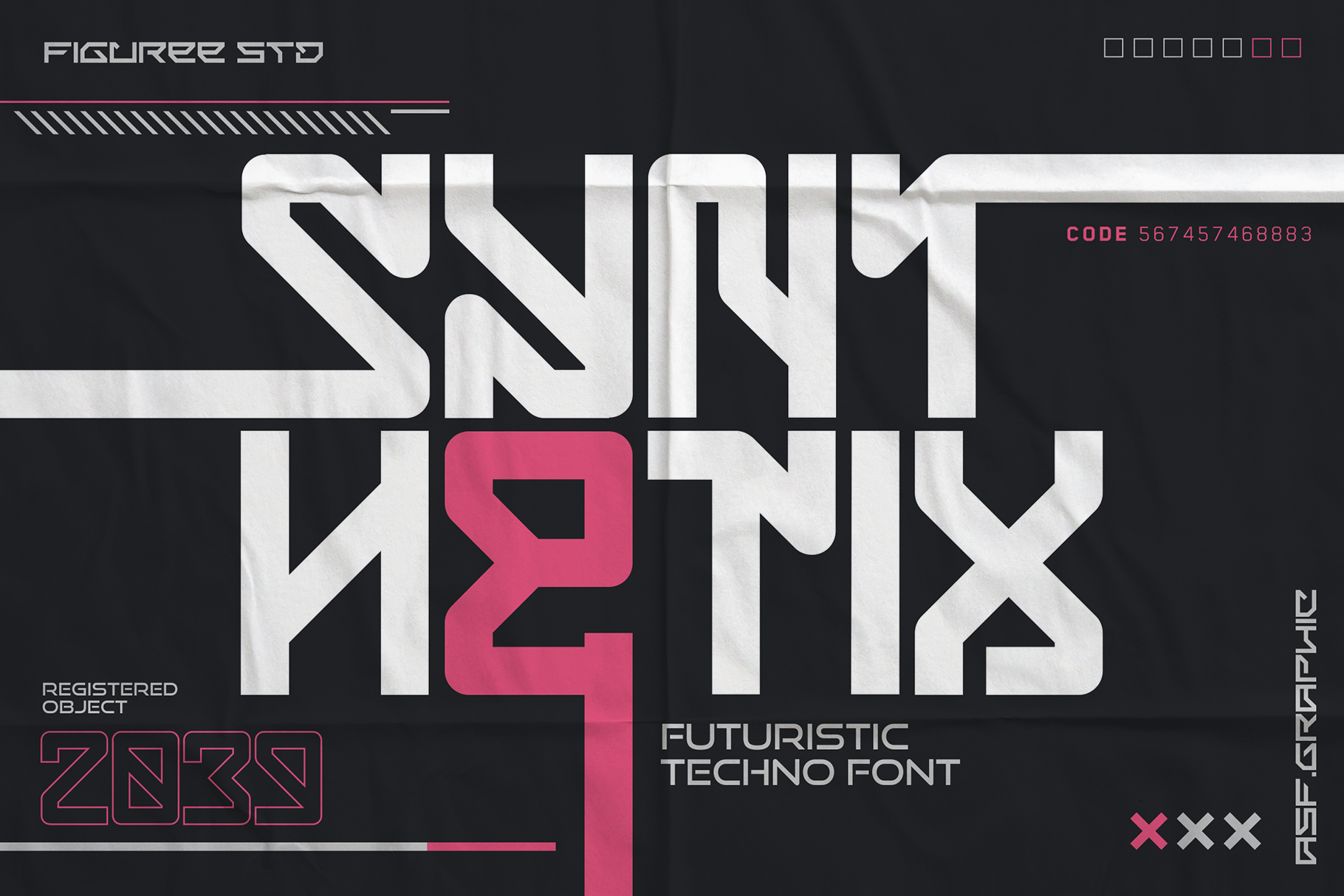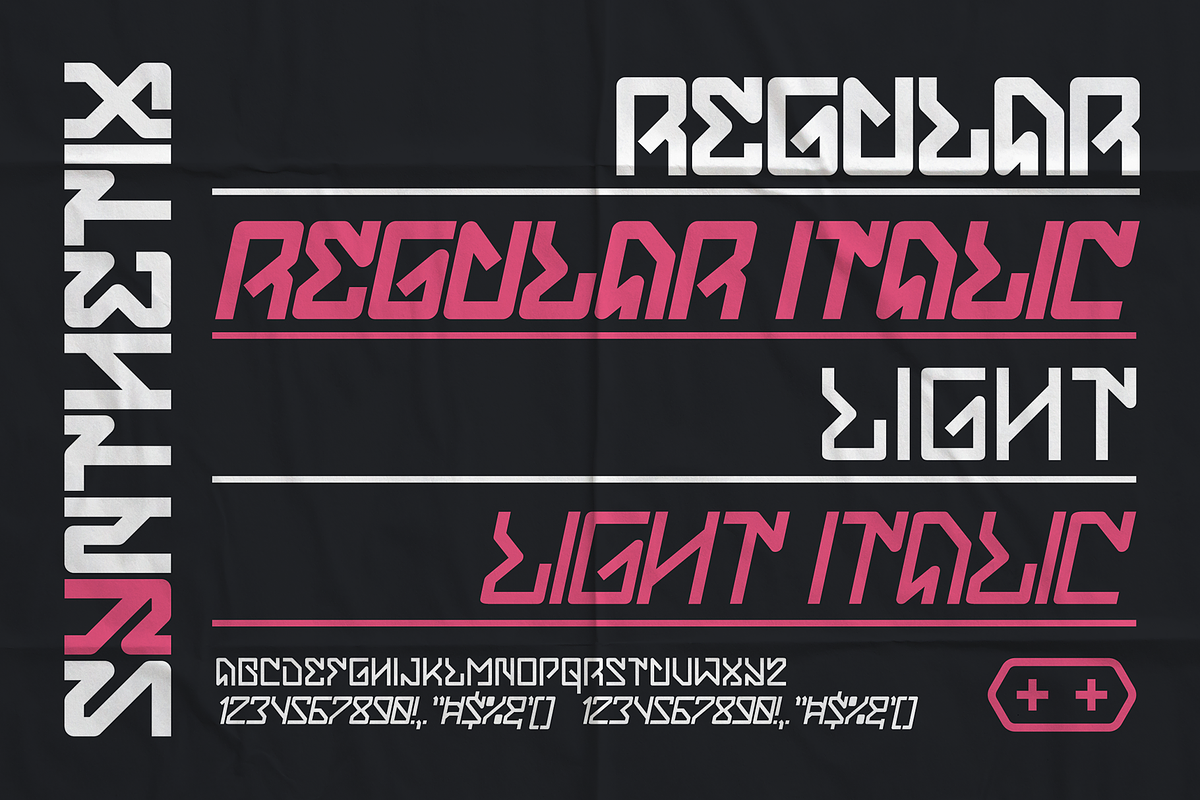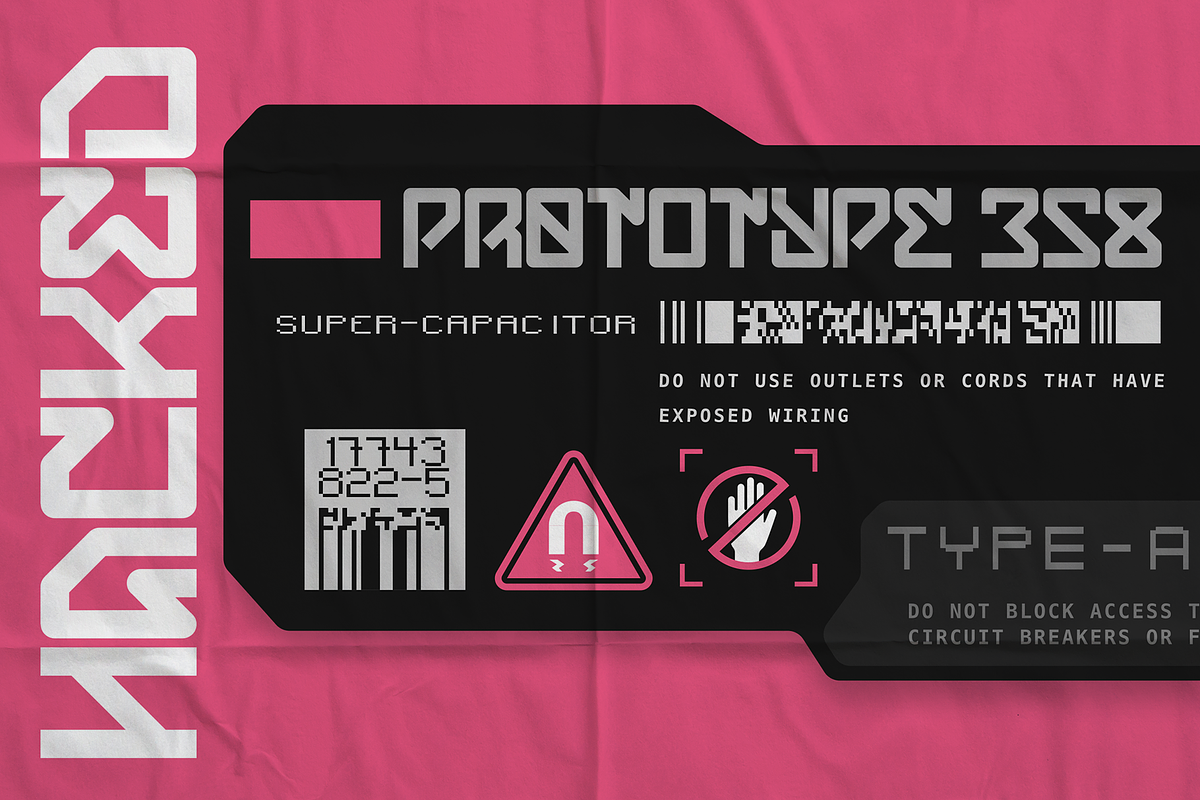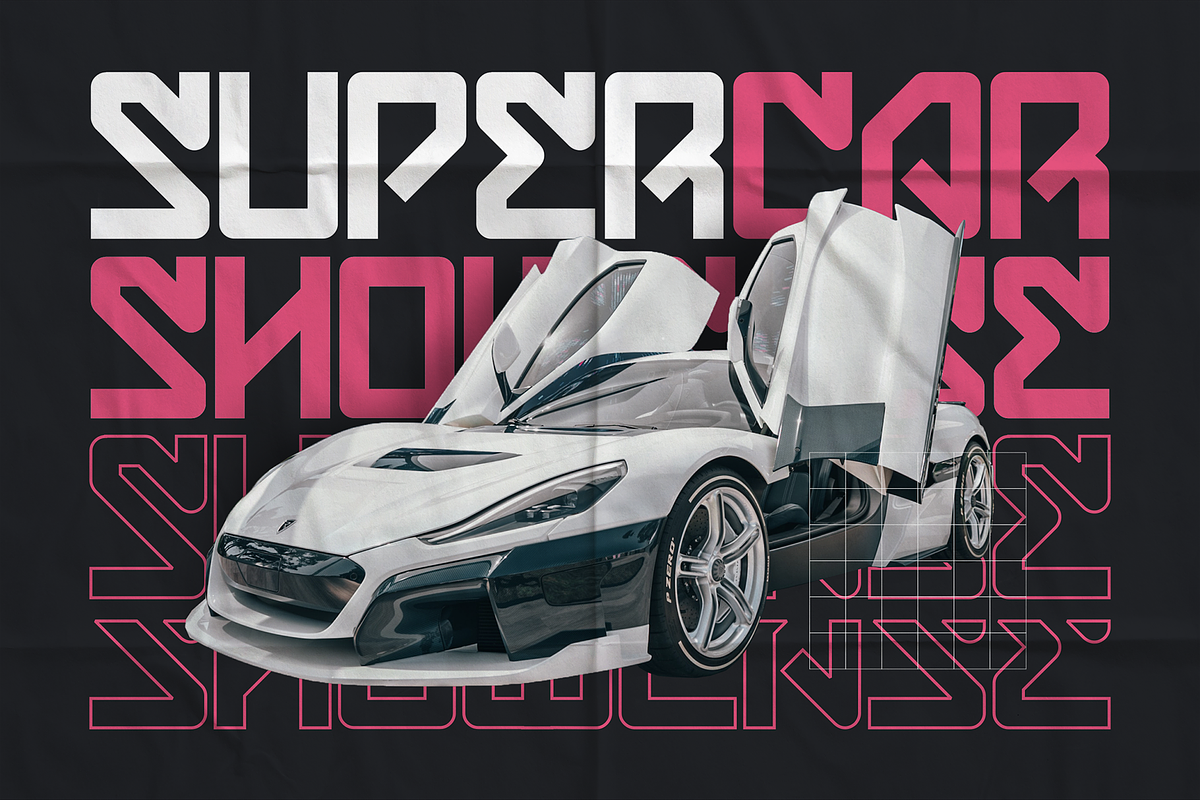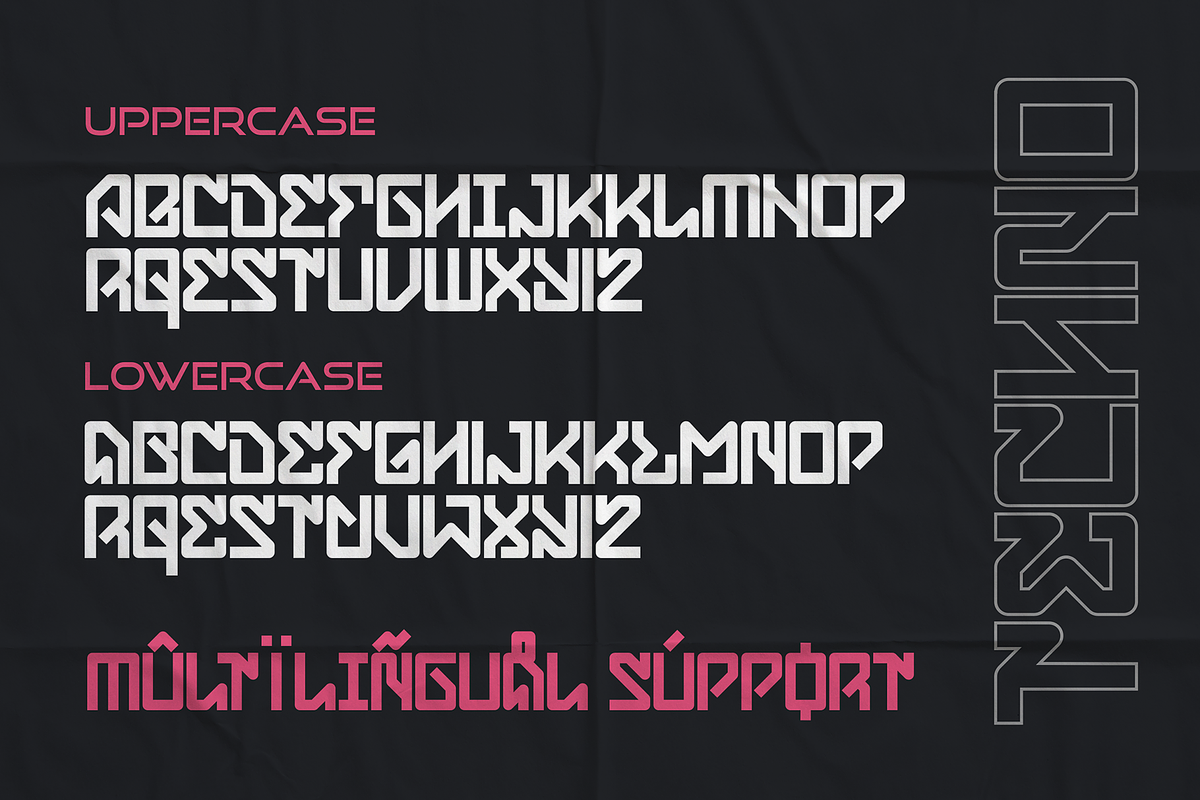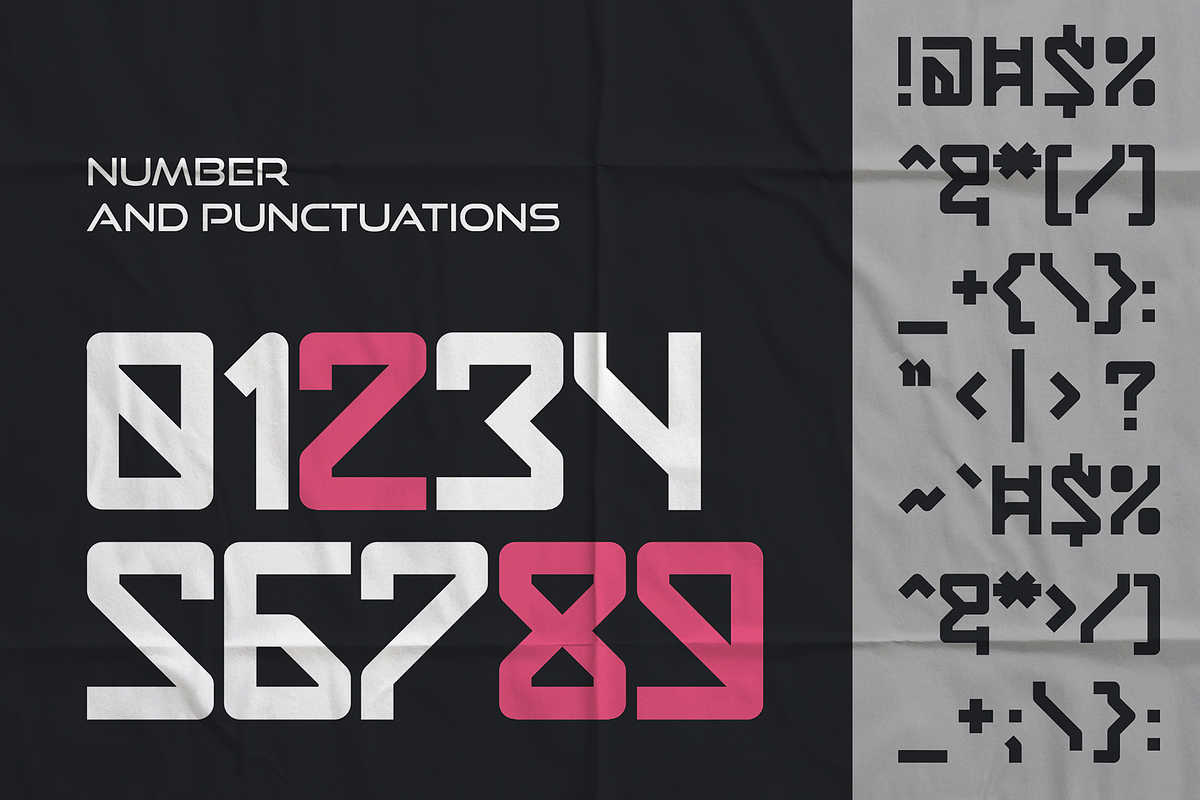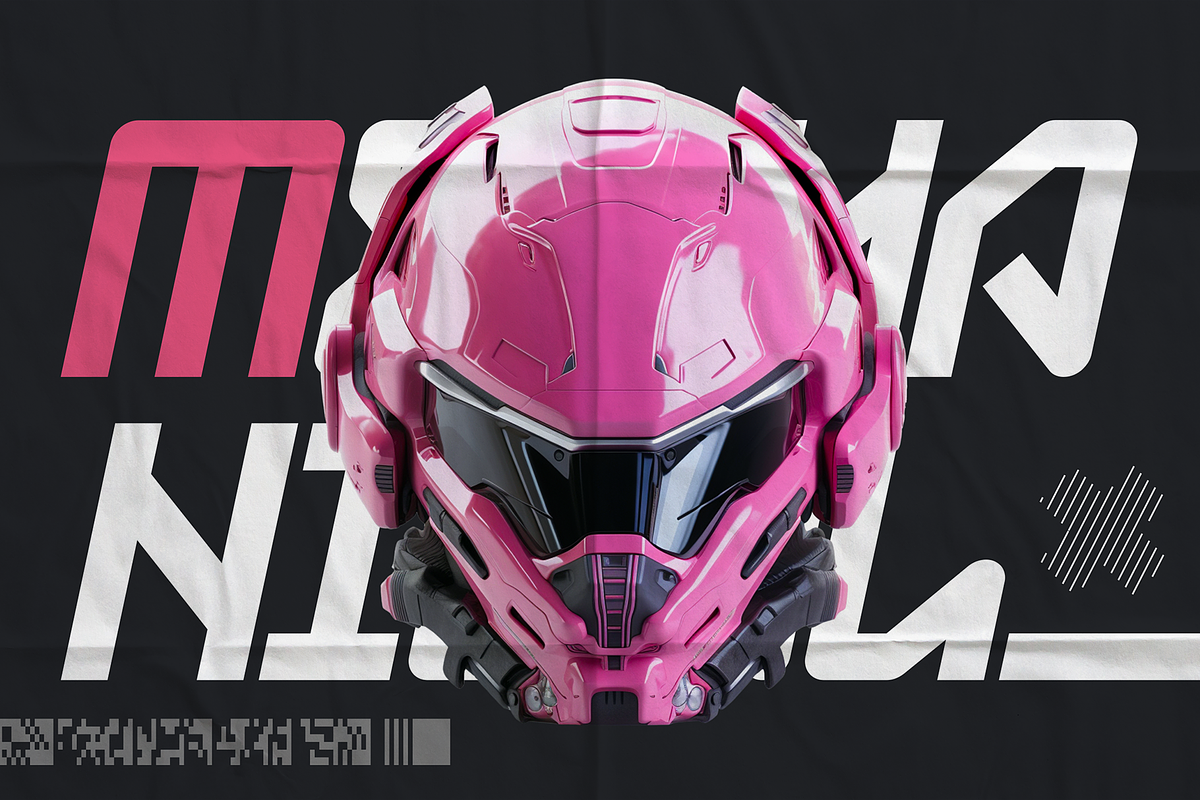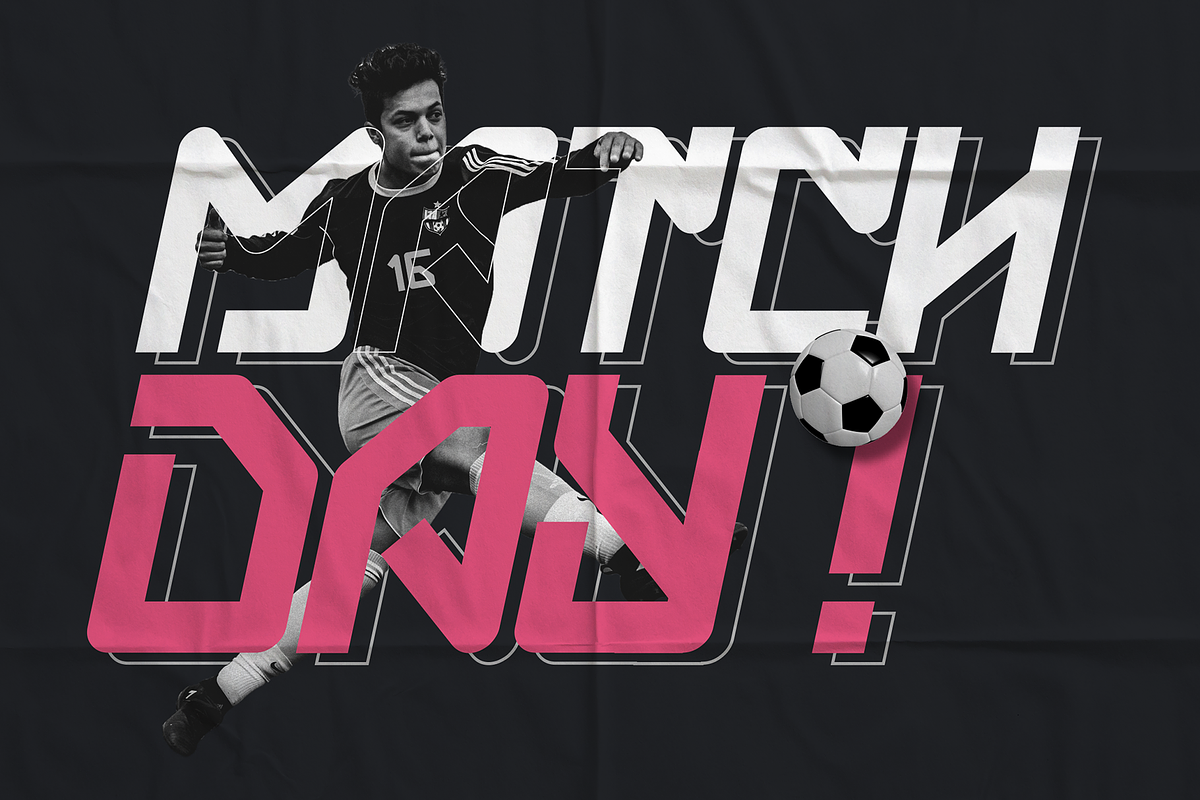
Synthetix - Futuristic Techno Font
Synthetix is a cutting-edge futuristic techno font that introduces a new era of sleek and dynamic typography. With a range of styles including Regular, Italic, Light, and Italic Light, this font offers versatility for various design needs. Its sharp, futuristic lettering embodies innovation and modernity, making it an ideal choice for projects requiring a contemporary and high-tech aesthetic. Whether used in tech branding, sci-fi designs, or any project seeking a bold and progressive style, Synthetix adds a touch of futurism to your typography, setting your text aglow with a sleek and visionary allure.